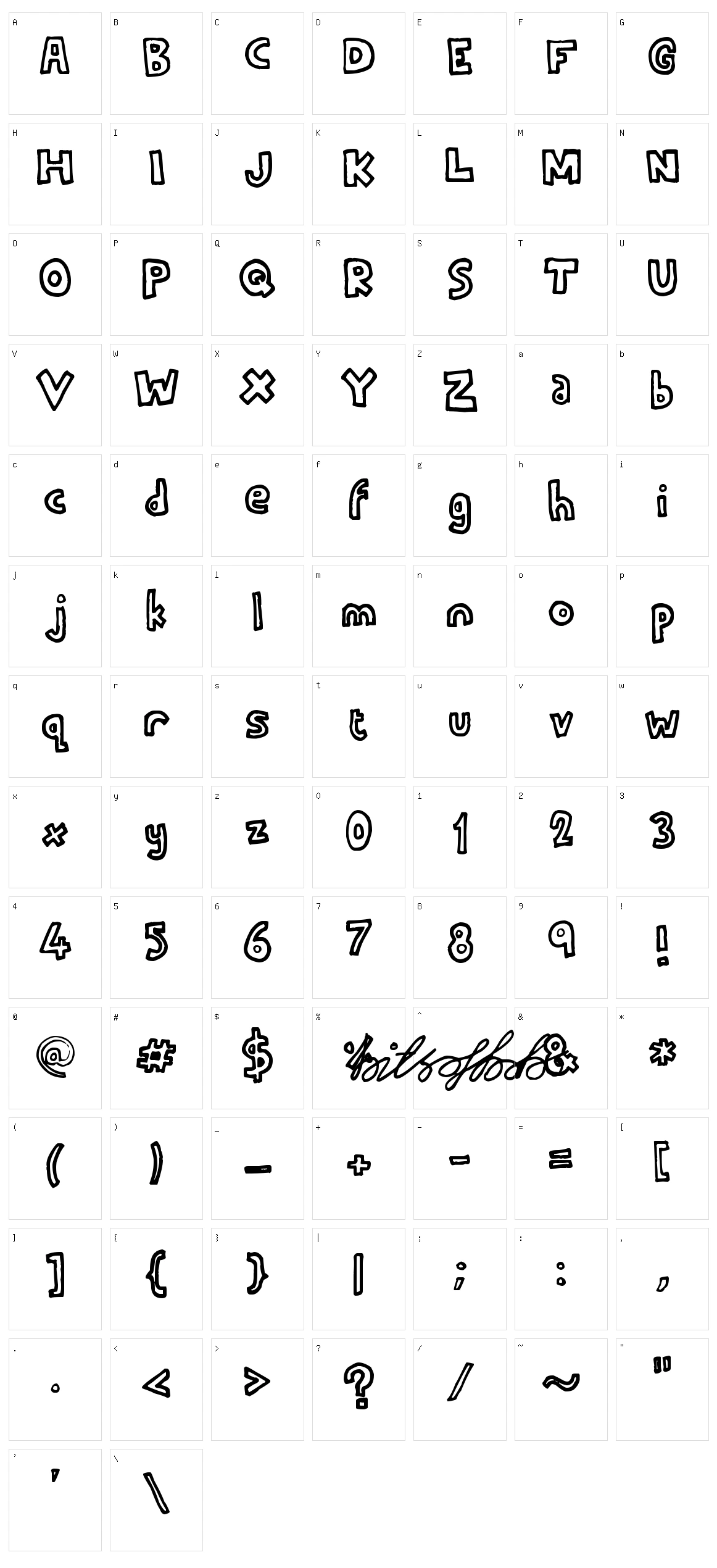
The free font Running On Empty is carefully designed by Rob Johnson, showcasing a thoughtful balance of creativity and usability and falls under the Cartoon font style. When you download the ZIP file, it contains only 19.99 KB of font files, making it lightweight and quick to download. Please review the license details below to understand permitted usage and distribution rights. If license information is not available, we recommend using this font for personal projects only or contacting the author directly for commercial usage permissions.